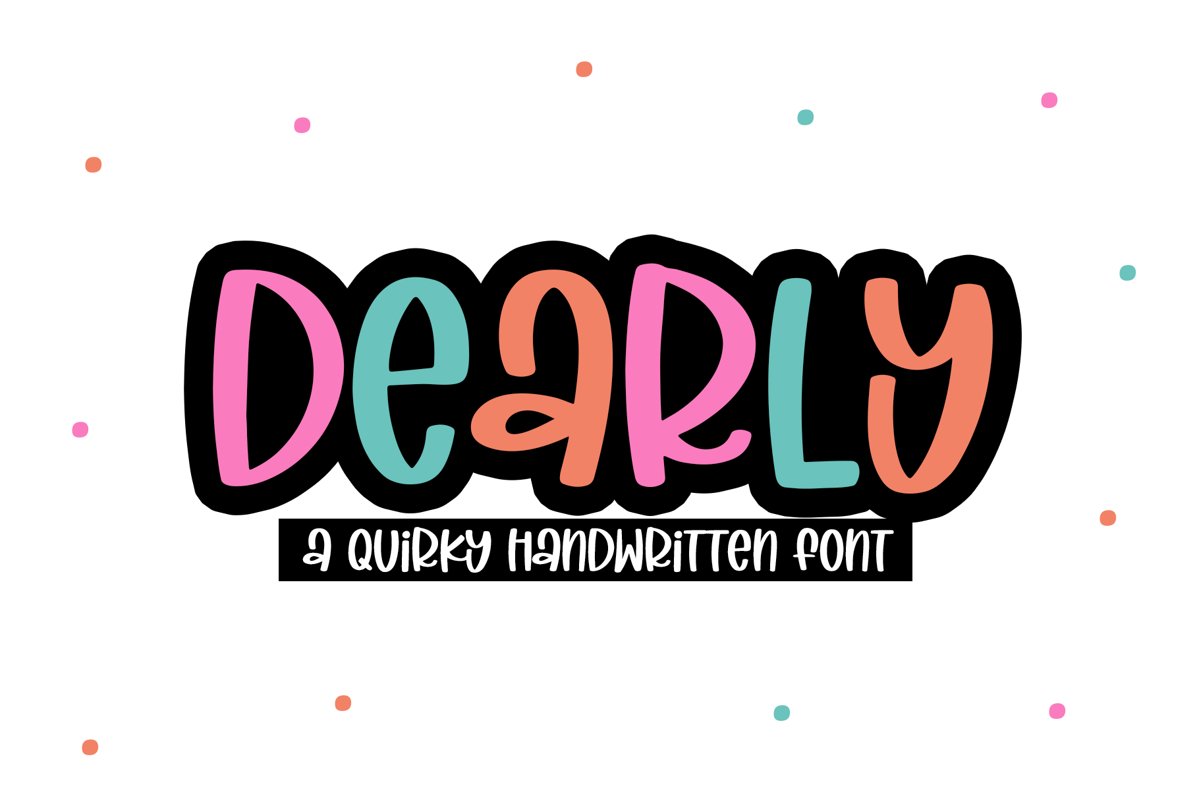
Dearly is a fun and quirky handwritten font!
This font is perfect for quotes, shirt designs, websites, branding, children's designs, svg designs, blogs, logos, invitations and more!
Dearly